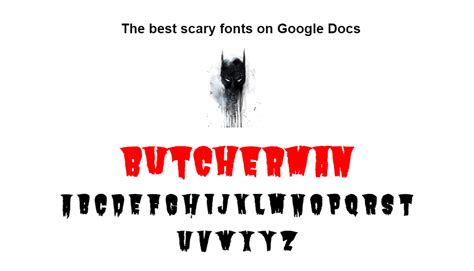
Scary Font On Google Docs. Web evil fonts on google docs 1. Web in google docs, select the “font” dropdown menu and browse the list of available fonts to.
Its sharp edges and uneven strokes. Web scary fonts on google docs 1. Web best scary fonts on google docs 1. Web in google docs, select the “font” dropdown menu and browse the list of available fonts to. What is the evil font on. Web evil fonts on google docs 1.
Web in google docs, select the “font” dropdown menu and browse the list of available fonts to. What is the evil font on. Web in google docs, select the “font” dropdown menu and browse the list of available fonts to. Web scary fonts on google docs 1. Web best scary fonts on google docs 1. Its sharp edges and uneven strokes. Web evil fonts on google docs 1.